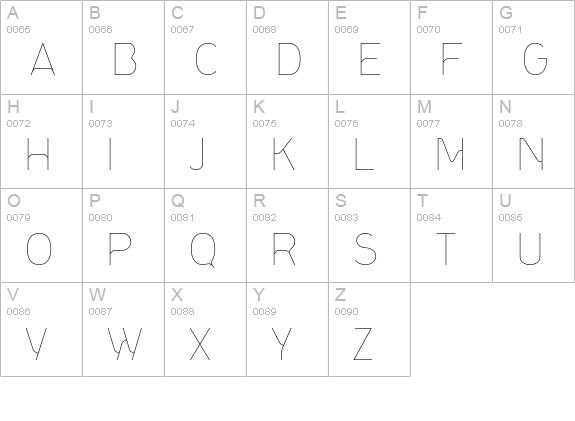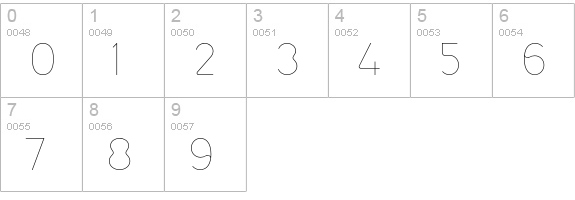
Enabler-Thin is a delicate, low-contrast variant in the Enabler typeface family \xE2\x80\x94 well suited to fashion editorial, minimal branding, and high-contrast display.
Enabler-Thin font is a sleek and modern typeface that exudes elegance and sophistication. With its thin and refined letterforms, this font is perfect for adding a touch of class to any design project. The delicate strokes and clean lines of Enabler-Thin make it ideal for creating a minimalist and contemporary look. This font is not only stylish but also incredibly versatile, suitable for a wide range of design applications including branding, editorial design, signage, and more. Whether you're crafting a chic logo or designing a sleek website, Enabler-Thin is sure to make a statement. Best of all, Enabler-Thin is available for free download at FontsMarket.com. So don't hesitate to add this exquisite font to your collection and elevate your designs with its timeless appeal.